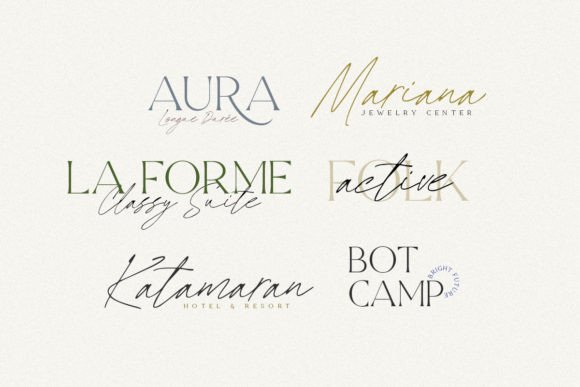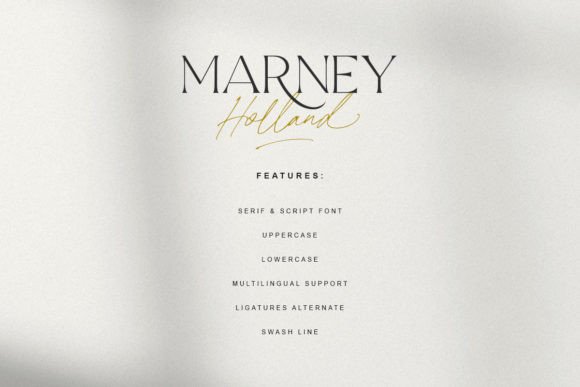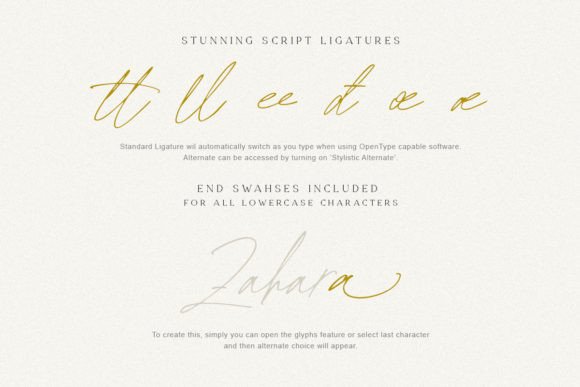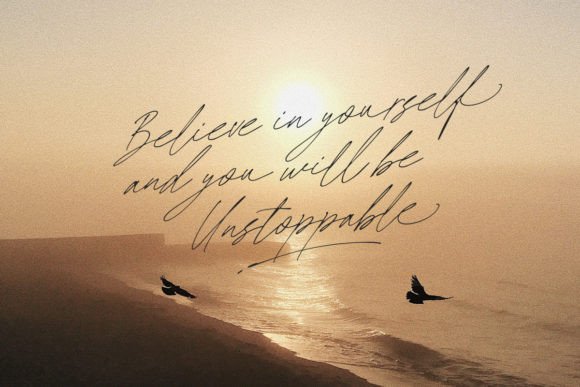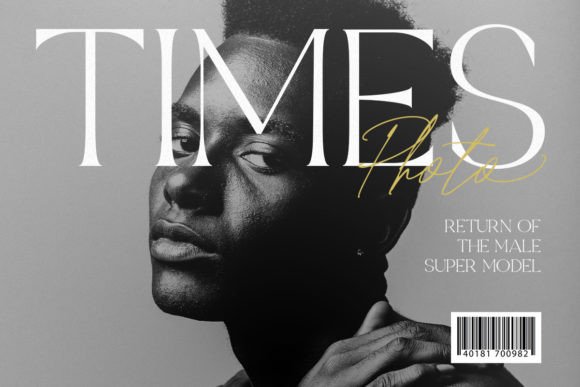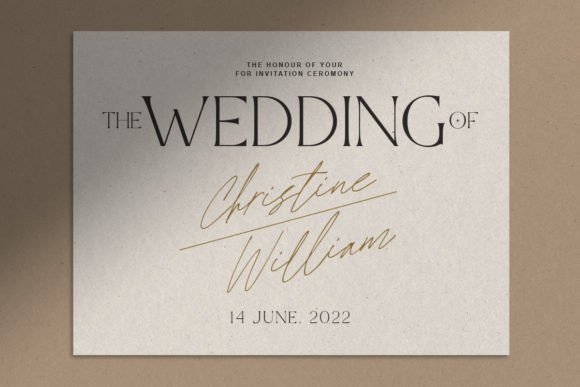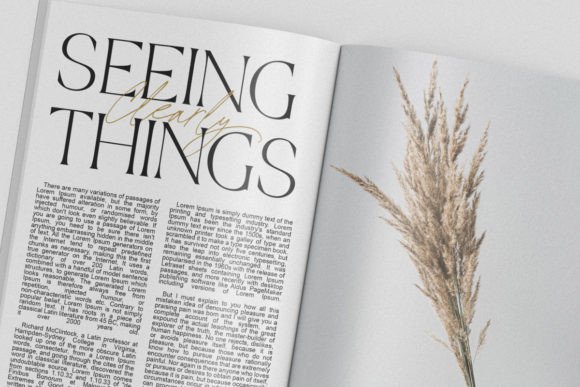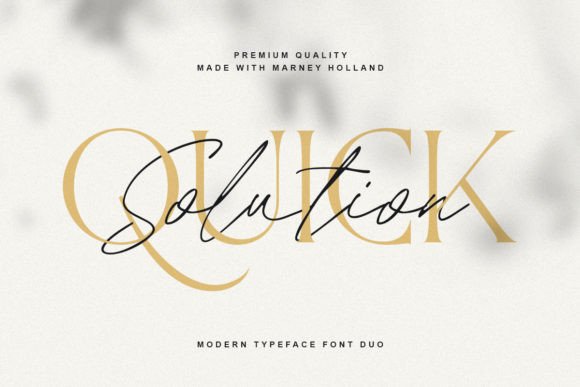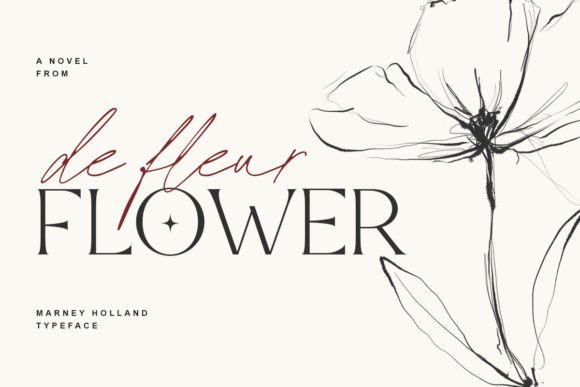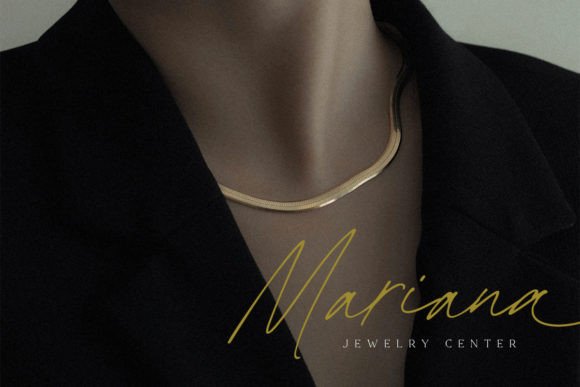
Marney Holland Font
Introducing “Marney Holland,” a font duo that combines a stylish signature script with an elegant serif. This versatile duo is designed to serve various purposes, from branding and logos to wedding invitations. With its timeless and sophisticated appeal, “Marney Holland” is a font duo that adds a touch of class to your designs.
The stylish signature script offers a personal and contemporary touch, while the elegant serif provides a sense of refinement and versatility. Whether you’re working on branding, creating a logo, or designing wedding invitations, this font duo provides a well-balanced combination of styles.
The PUA encoding of “Marney Holland” is a notable feature, allowing easy access to all glyphs and swashes. This enhances your creative freedom, enabling you to incorporate various characters and stylistic elements seamlessly.
In summary, “Marney Holland” is not just a font duo; it’s a creative asset that brings style and sophistication to your designs. Download “Marney Holland” now and explore how this font duo can elevate your branding, logos, wedding invitations, and various other creative projects. With its signature script and elegant serif, “Marney Holland” is ready to become a valuable addition to your design toolkit.